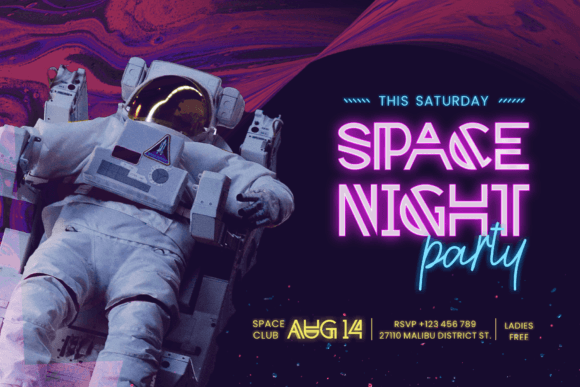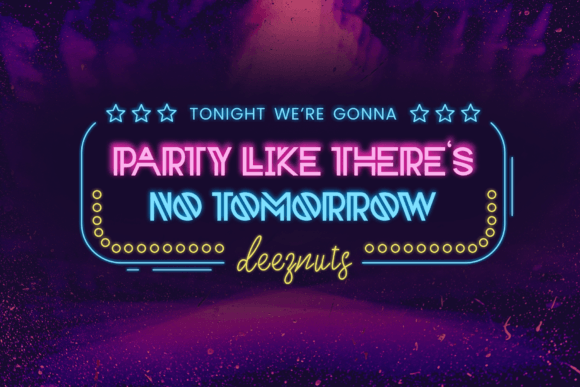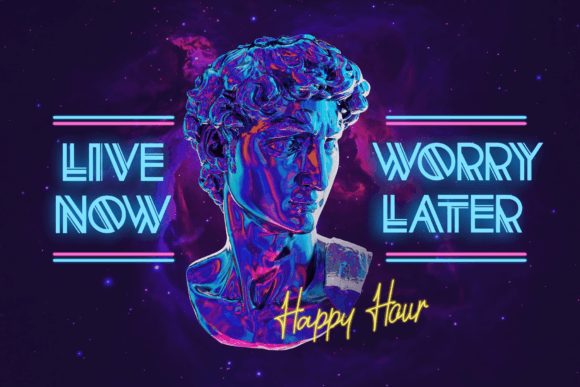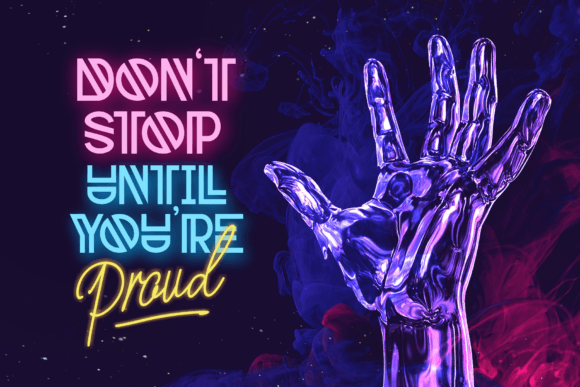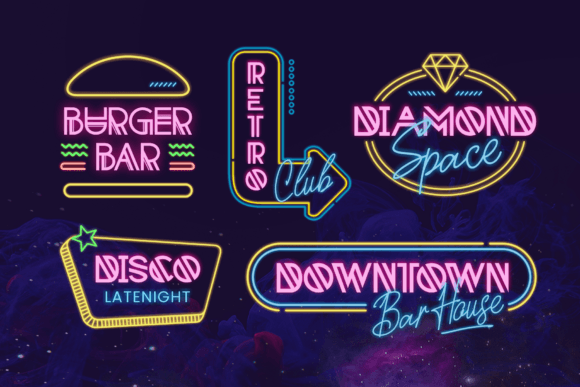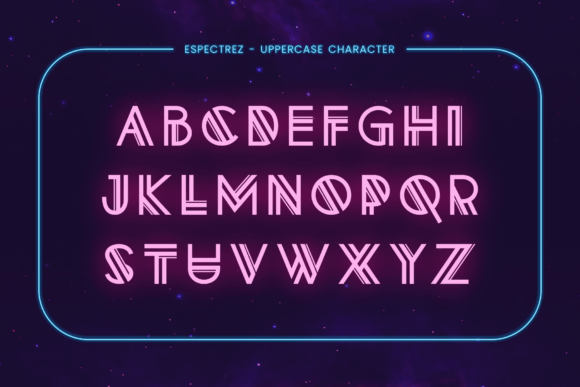
Introducing ESPECTREZ: The Neon-Inspired Font for Modern Designs
In the world of typography, fonts play a crucial role in conveying the tone and aesthetic of a design. For designers and crafters looking to add a touch of modernity and futurism to their projects, ESPECTREZ is a unique font that stands out from the crowd. Inspired by the vibrant glow of neon signage, ESPECTREZ is a sans serif all-caps font that combines stiff and modern elements to create a truly eye-catching visual experience.
The Inspiration Behind ESPECTREZ
Neon signage has been a staple of urban landscapes for decades, captivating audiences with its bright, eye-catching glow. The idea behind ESPECTREZ was to bottle this essence and translate it into a digital font that could be used by designers and crafters to add a touch of neon magic to their projects. By modifying the basic sans serif all-caps font to include outlines and neon-like adjustments, ESPECTREZ was born – a font that embodies the spirit of modernity and futurism.
Key Features of ESPECTREZ
So, what makes ESPECTREZ so special? Here are some of its key features:
• Unique Neon-Inspired Design: ESPECTREZ boasts a one-of-a-kind design that captures the essence of neon signage. Its outlines and modified structure give it a stiff and modern look that’s perfect for designs that require a futuristic touch.
• Sans Serif All-Caps Font: The font’s sans serif all-caps design ensures that it remains clean and legible, even at smaller sizes. This makes it ideal for use in a variety of design applications, from posters and flyers to digital screens and signage.
• Adjustable Neon Effect: One of the standout features of ESPECTREZ is its adjustable neon effect. This allows designers to tweak the font to suit their design needs, creating a customized look that’s both modern and eye-catching.
Use Cases for ESPECTREZ
ESPECTREZ is a versatile font that can be used in a wide range of design applications. Here are some ideas to get you started:
• Poster and Flyer Design: Add a touch of neon glamour to your posters and flyers with ESPECTREZ. Its bold, eye-catching design is sure to grab attention and leave a lasting impression.
• Branding and Logo Design: Use ESPECTREZ to create a modern and futuristic brand identity. Its unique design makes it perfect for tech startups, gaming companies, and other businesses that require a bold and edgy look.
• Digital Signage and Displays: ESPECTREZ is ideal for digital signage and displays, adding a touch of neon sophistication to menus, directories, and other digital displays.
• Crafting and DIY Projects: Crafters and DIY enthusiasts can also use ESPECTREZ to add a touch of modernity to their projects. From customized jewelry to home decor, ESPECTREZ can be used to create unique and eye-catching designs.
Tips for Using ESPECTREZ Effectively
To get the most out of ESPECTREZ, here are some tips to keep in mind:
• Experiment with Colors: ESPECTREZ looks great in a variety of colors, so don’t be afraid to experiment and find the perfect hue for your design.
• Play with Neon Effects: Adjust the neon effect to suit your design needs. This can help create a customized look that’s both modern and eye-catching.
• Pair with Complementary Fonts: ESPECTREZ can be paired with complementary fonts to create a unique and visually appealing design.
In conclusion, ESPECTREZ is a unique font that’s perfect for designers and crafters looking to add a touch of modernity and futurism to their projects. Its neon-inspired design, adjustable neon effect, and versatility make it an ideal choice for a wide range of design applications. Whether you’re creating posters, logos, digital signage, or crafting projects, ESPECTREZ is sure to make your designs stand out from the crowd.